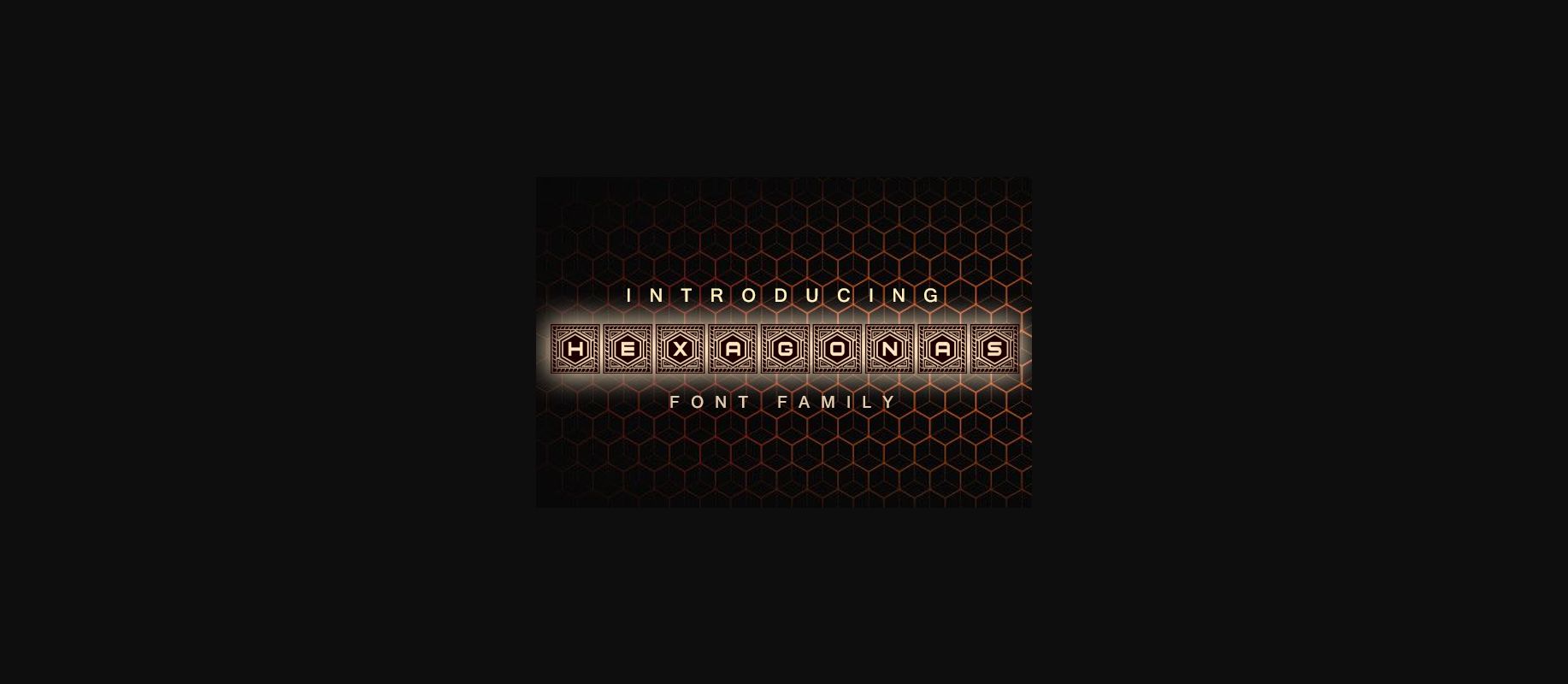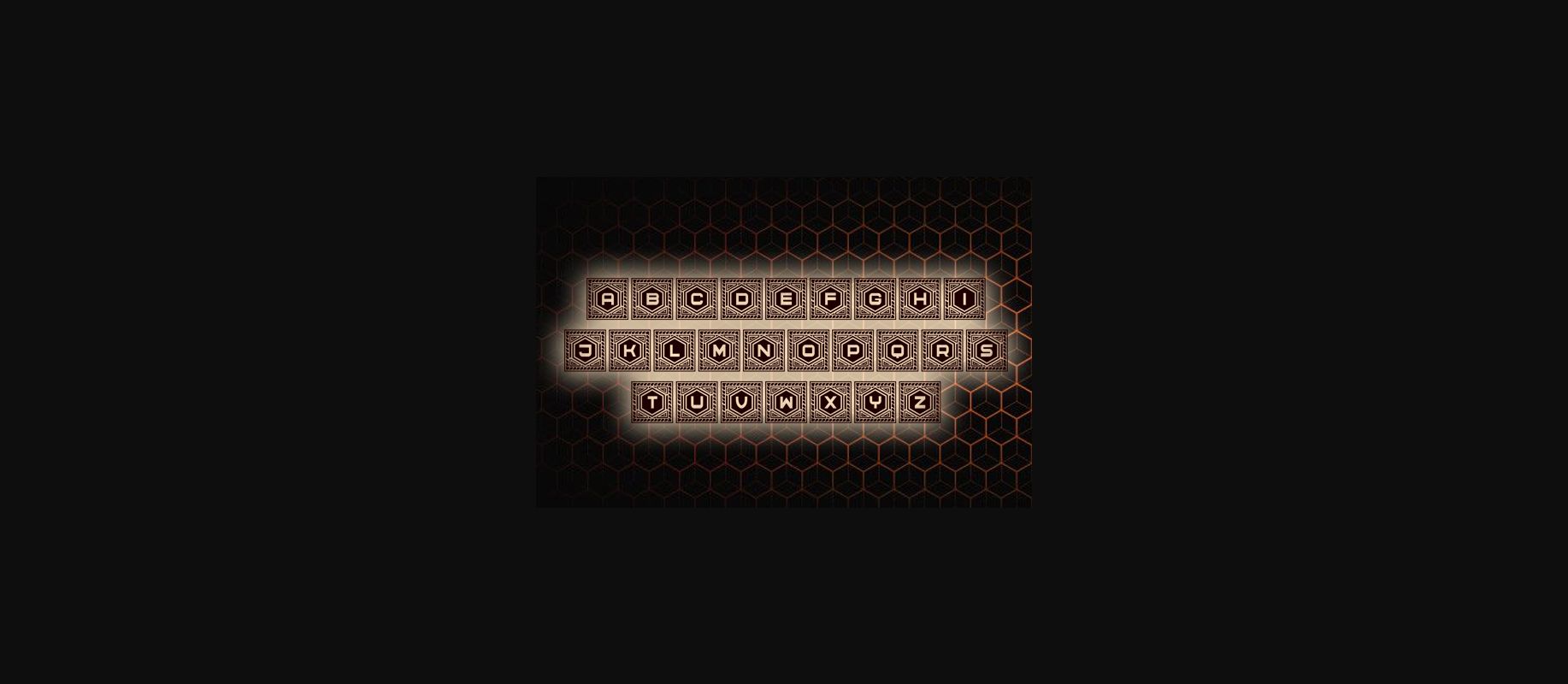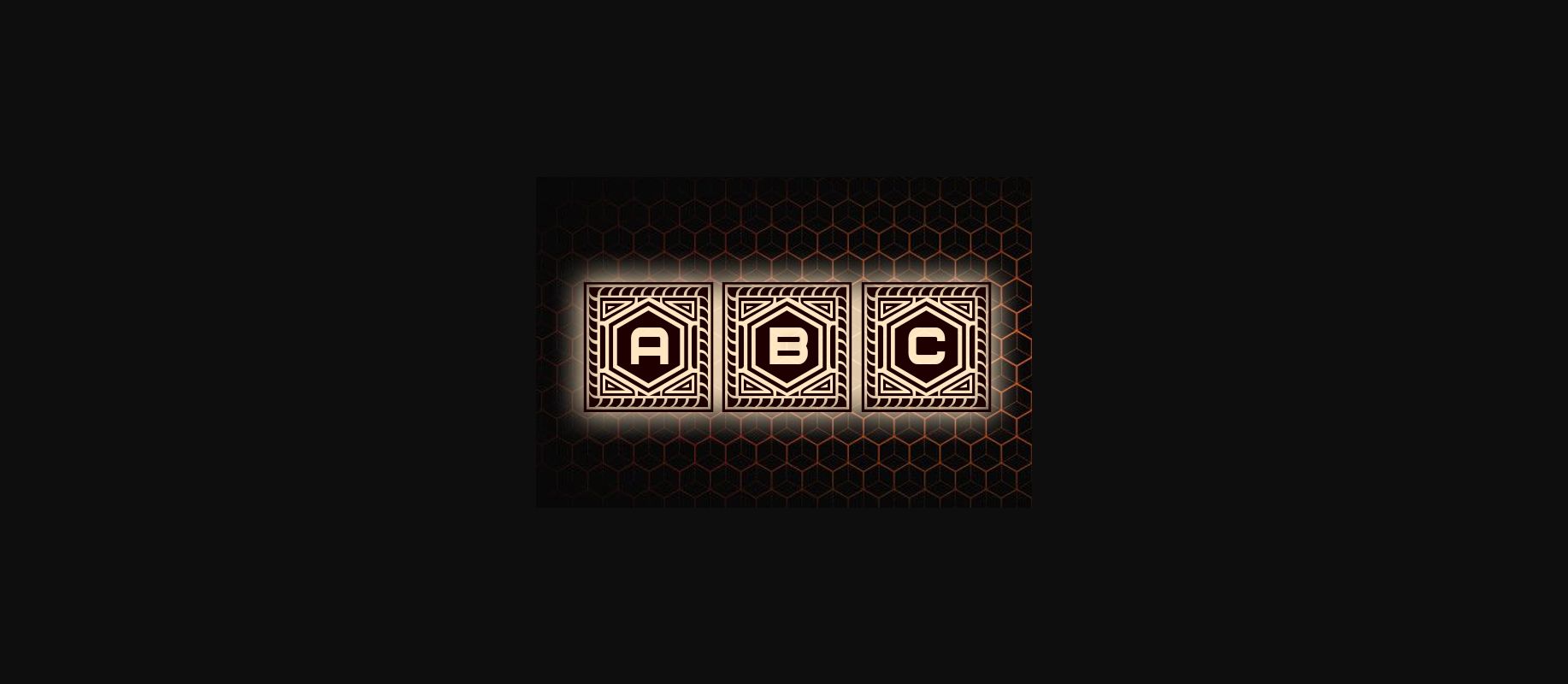
About Hexagonas Font
Hexagonas is an incredibly unique decorative font. Masterfully designed to become a true favorite, this font has the potential to bring each of your creative ideas to the highest level!